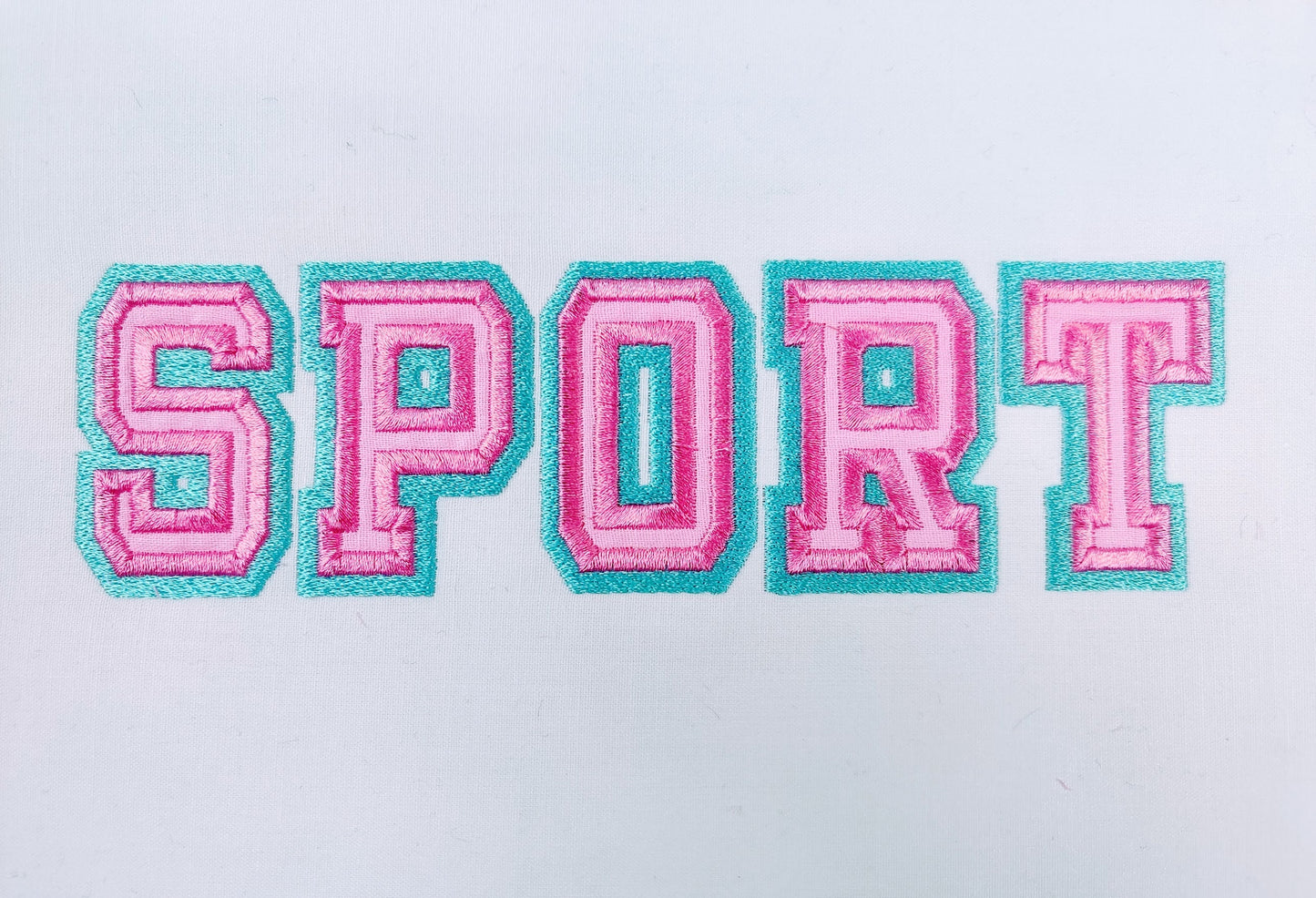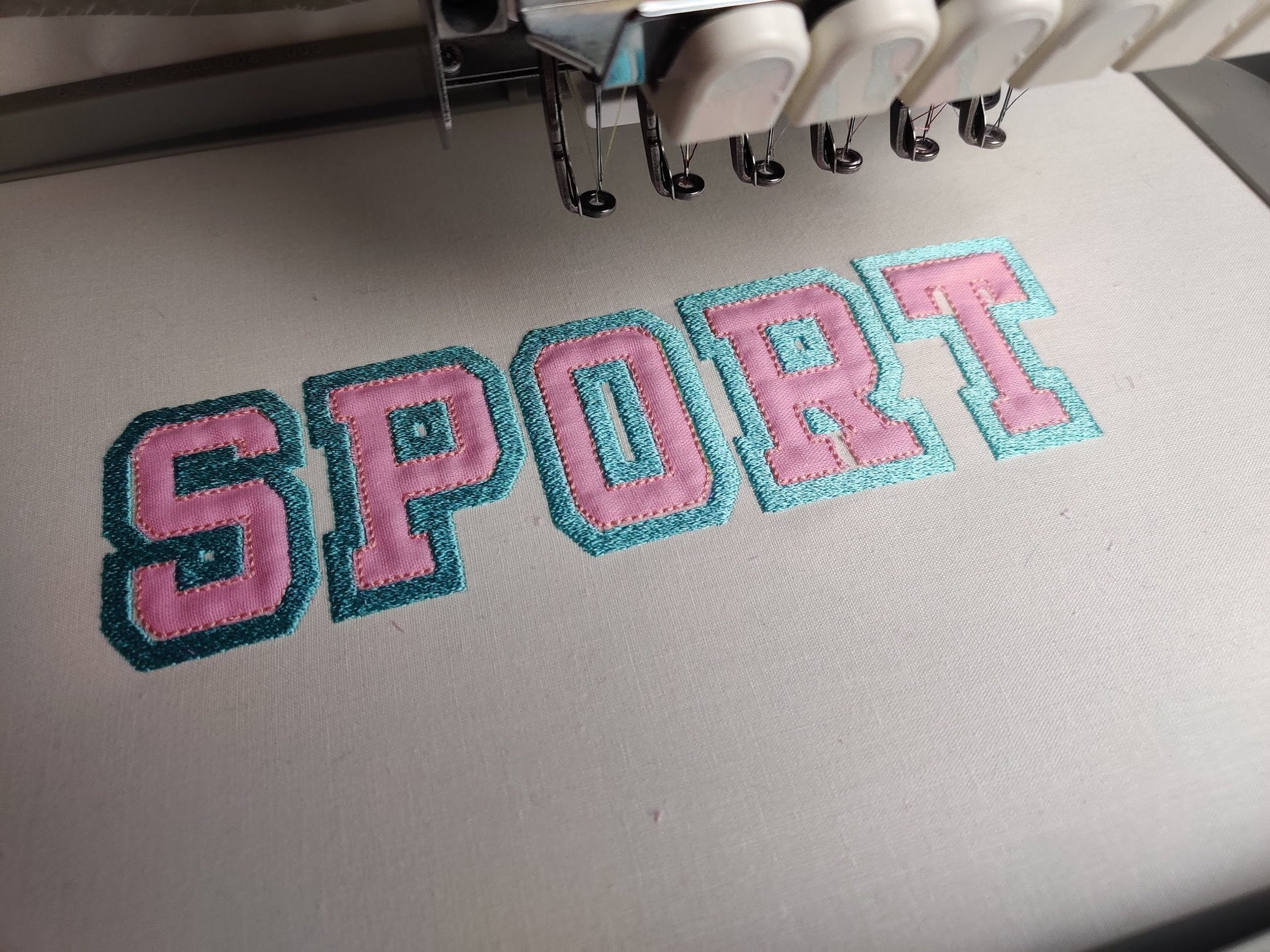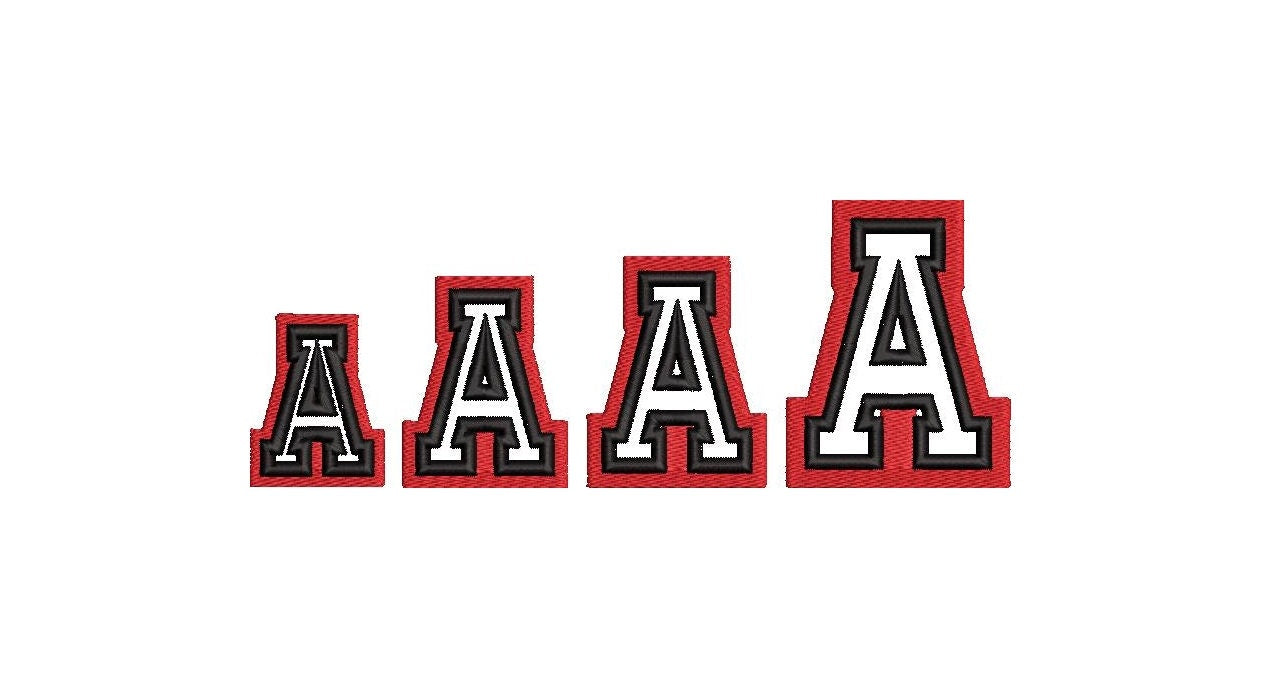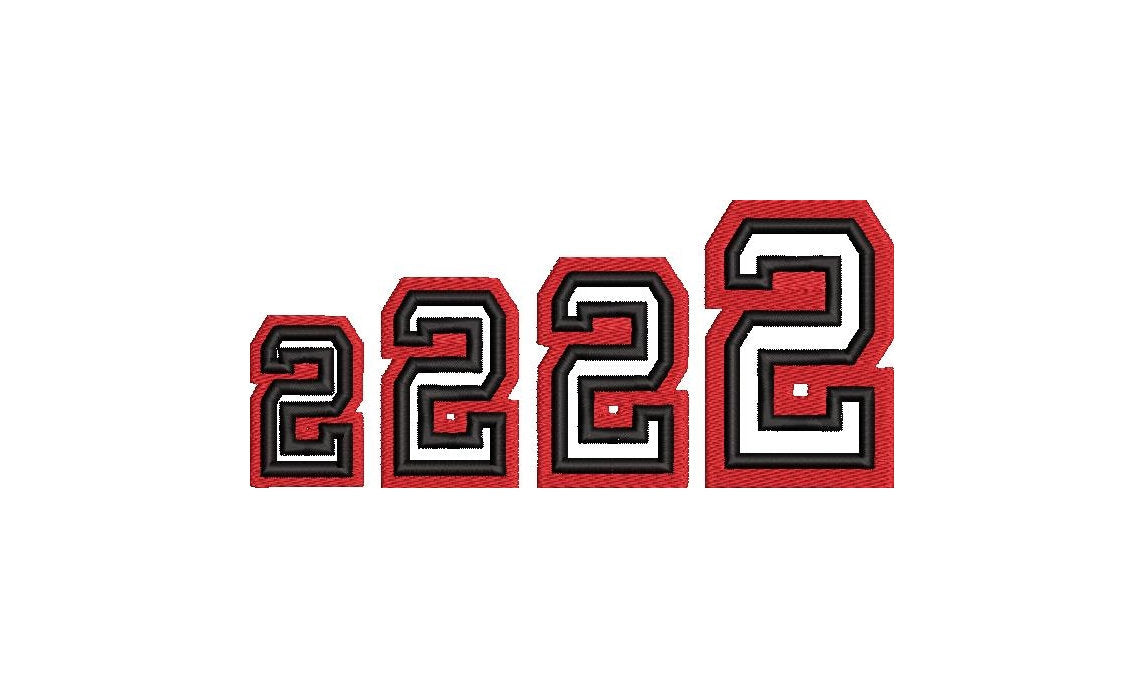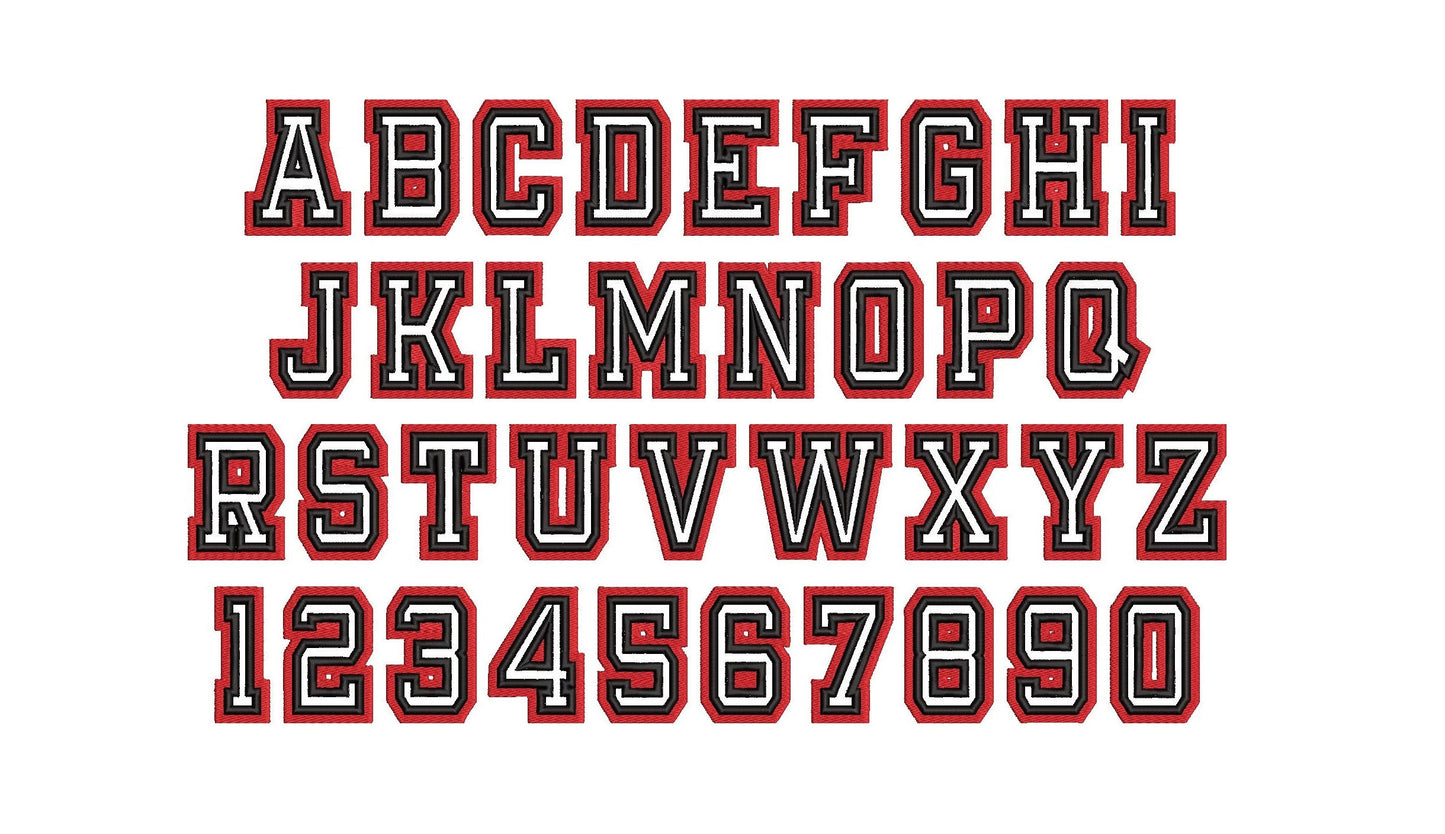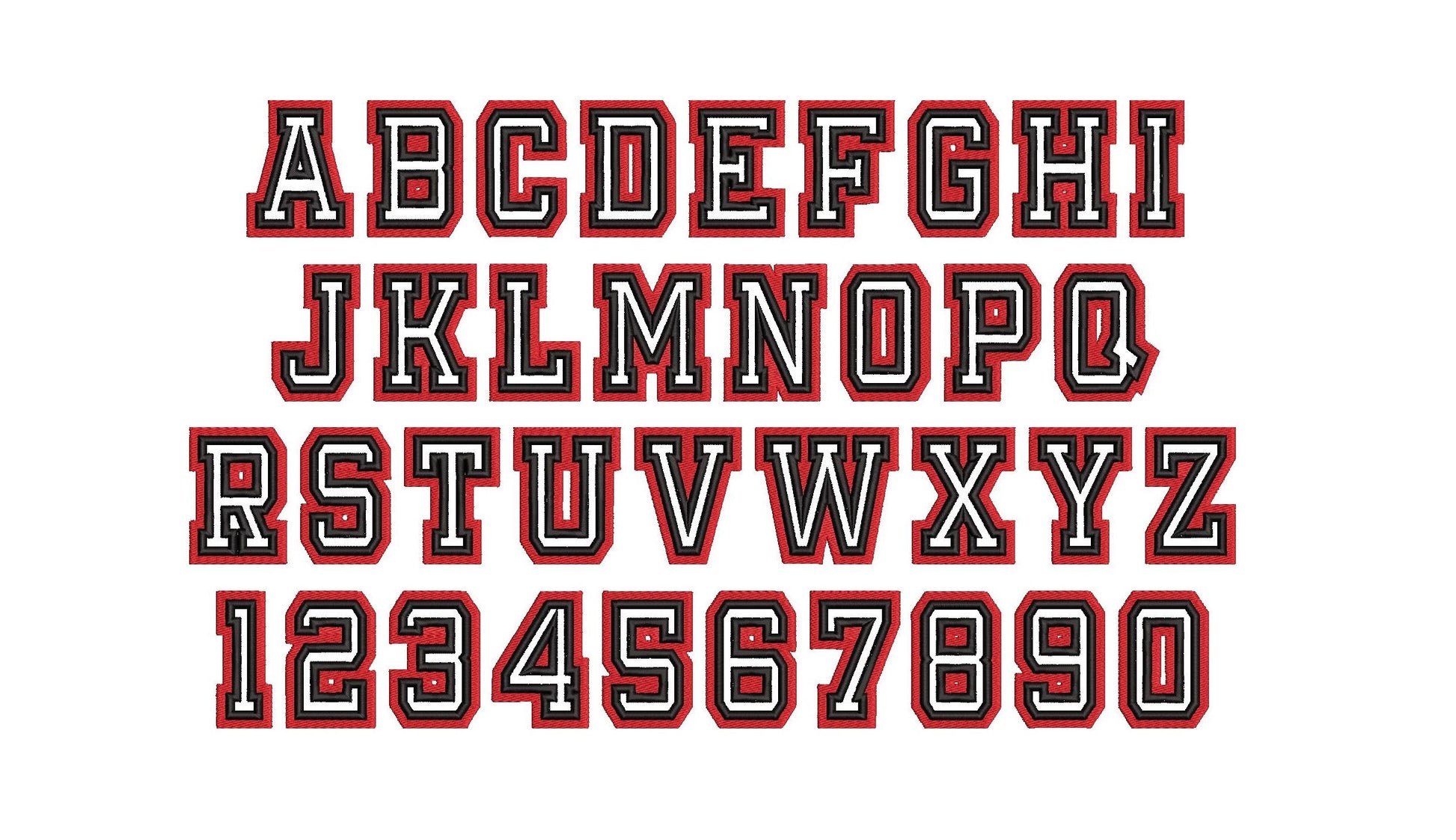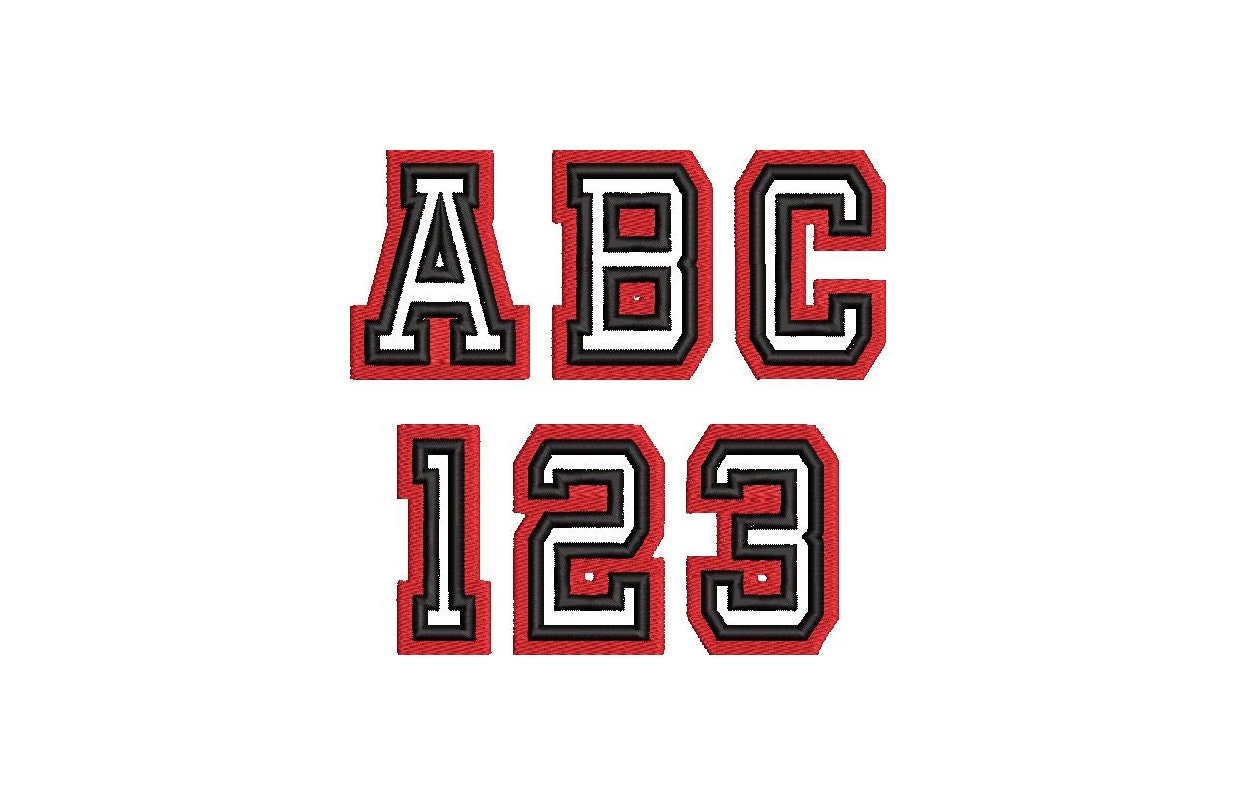
Or click to open the linkA thin athletic font with a double outline, stitched as applique. Made for team shirts, jerseys, school spirit wear and sports bags.
Capital letters A to Z and numbers 0 to 9 in four sizes: 1.8, 2.2, 2.5 and 3 inches. Fill stitch letters with two nice wide satin stitch outlines.